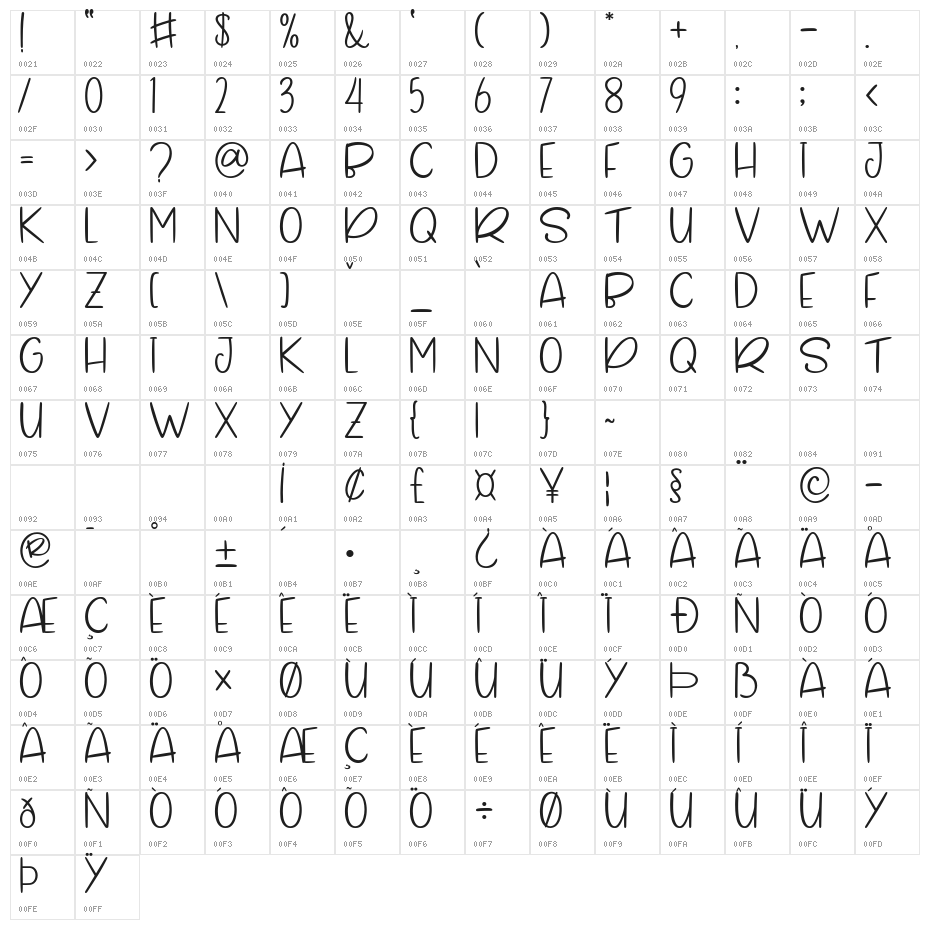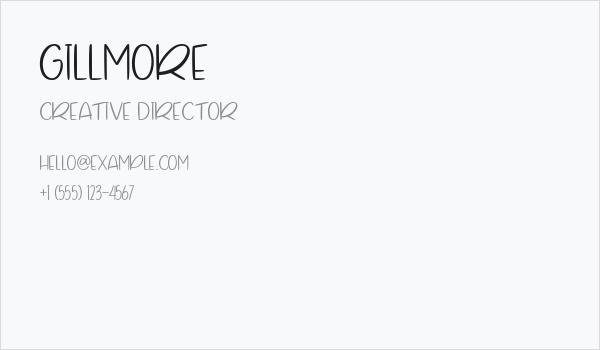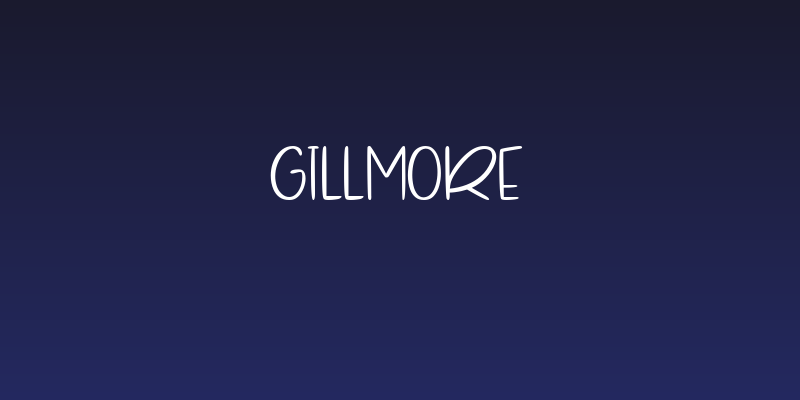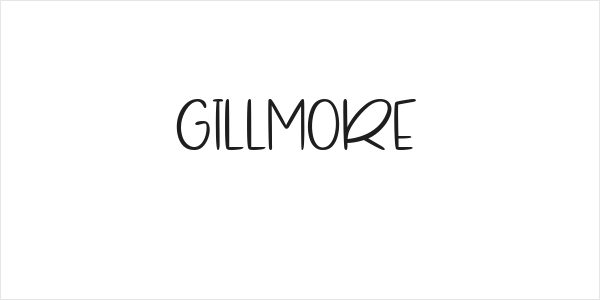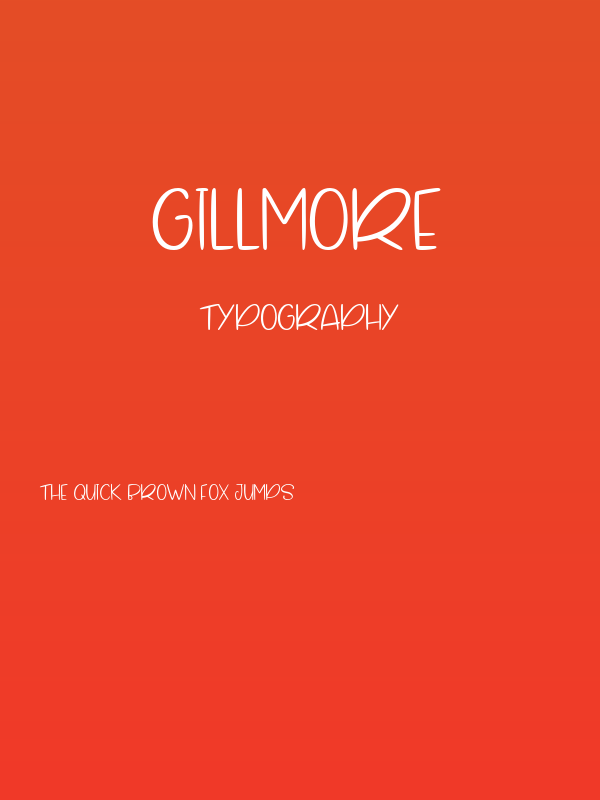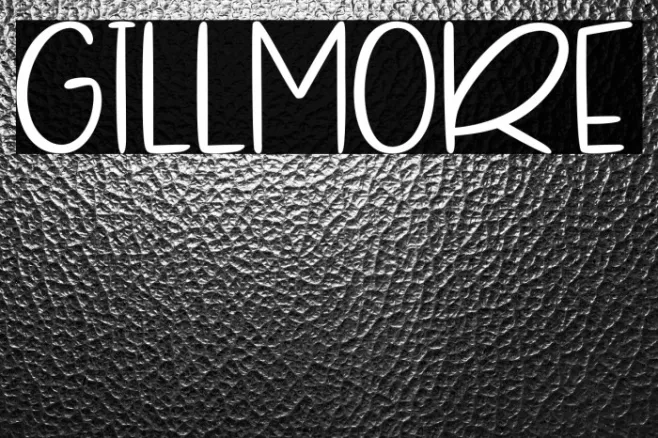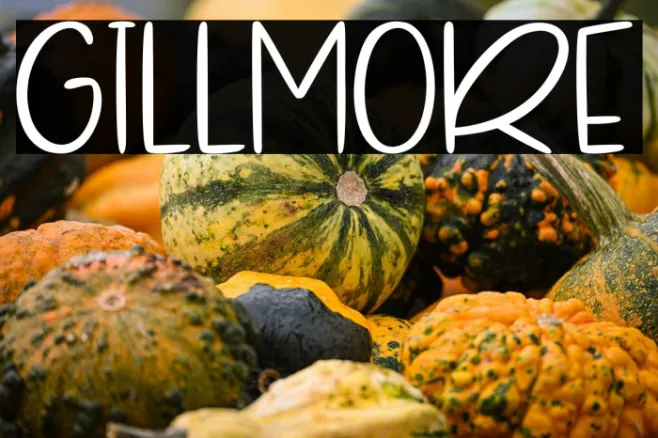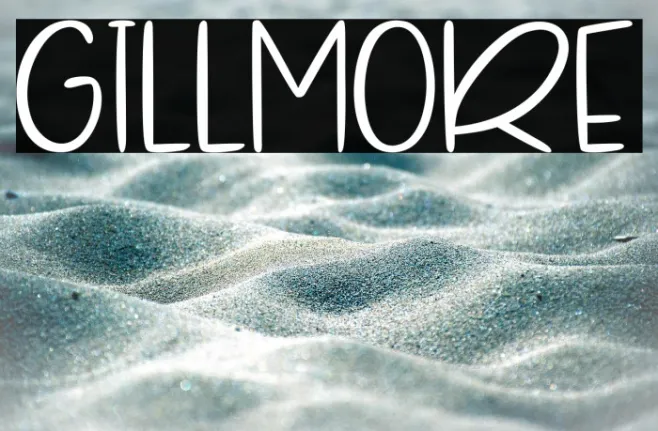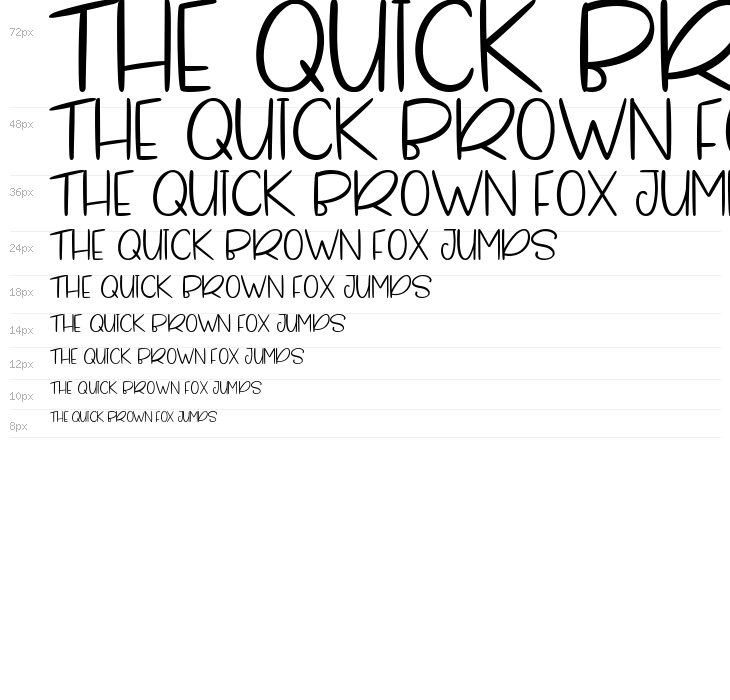
Gillmore Font
Gillmore Description
This font features a playful and casual handwritten style, characterized by its smooth, rounded edges and consistent stroke width. The uppercase and lowercase letters maintain a uniform height, creating a cohesive and balanced appearance. The numbers and special characters follow the same design principles, ensuring readability and visual harmony. The font's informal and friendly vibe makes it suitable for projects that require a personal touch, such as greeting cards, invitations, and social media graphics. Its simplicity and clarity also make it a good choice for children's books and educational materials.
| Proposed Projects | Greeting cards, invitations, social media graphics, children's books, educational materials. |